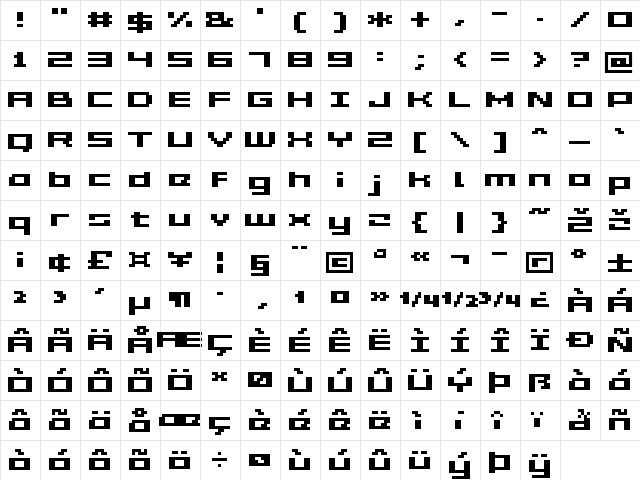
Grixel Acme 5 Wide Bold Regular
Design Context for Grixel Acme 5 Wide Bold Typeface
Grixel Acme 5 Wide Bold is a composed and adaptable typeface that performs quietly and consistently across a wide range of design contexts. The heavy weight commands attention and anchors typographic hierarchies.